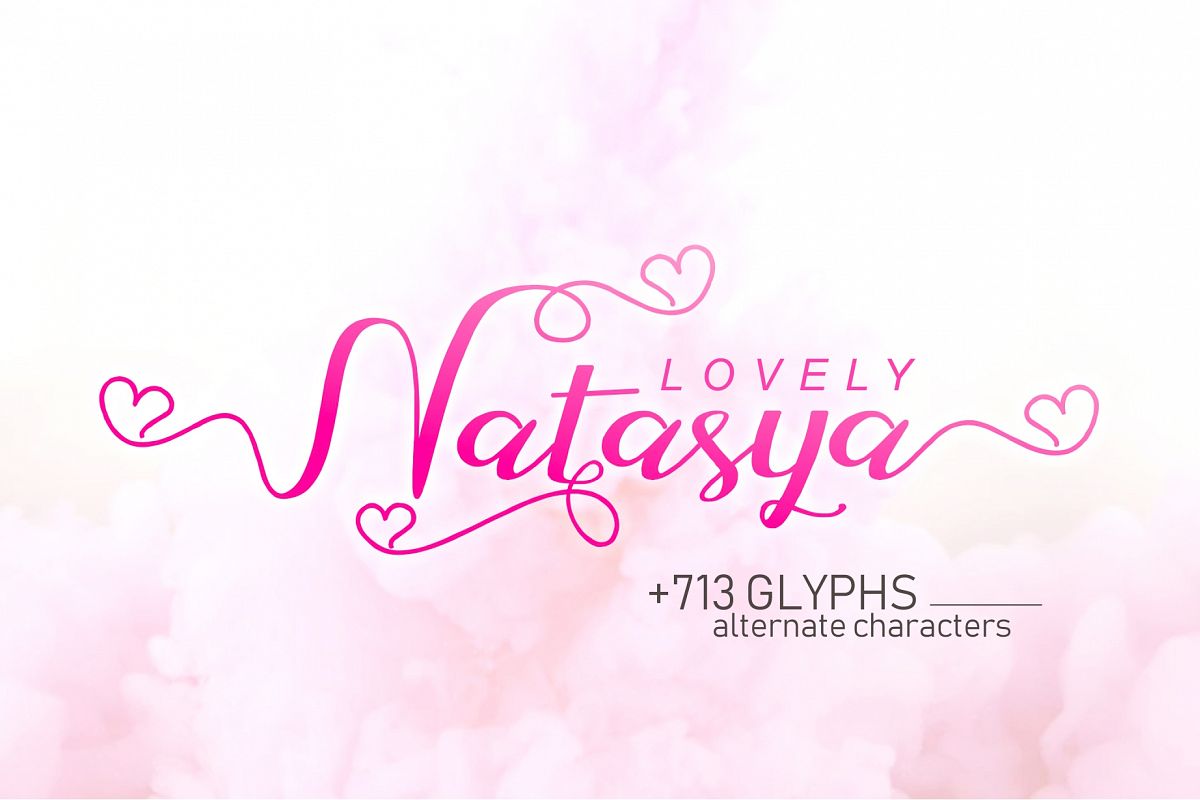
Lovely Natasya Script
Lovely Natasya is a new variant of hand-made script typepace. Comes to complete your script font collection. This typeface has been enriched with additional alternative characters up to +713 glyphs ( ligature + Alternative character) . Hopefully useful to capture the soul of design. match the design on your wedding invitations, fashion brand, and beautify various other designs. Language Support.
The alternative characters were divided into several Open Type features such as Swash, Stylistic Sets, Stylistic Alternates, Contextual Alternates. The Open Type features can be accessed by using Open Type  programs such as Adobe Illustrator, Adobe InDesign, Adobe Photoshop Corel Draw X version, And Microsoft Word. And this Font has given PUA unicode (specially coded fonts). so that all the alternate characters can easily be accessed in full by a craftsman or designer.